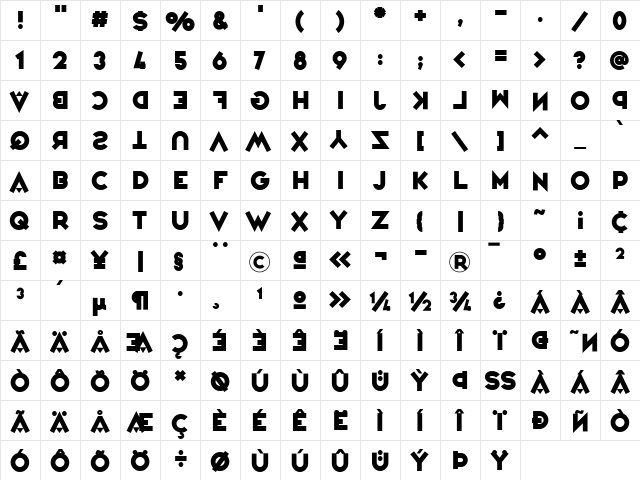
Variet頊ongleur Regular
| Foundry | Peter Wiegel |
| Designer | Peter Wiegel |
Design Context for Variet頊ongleur Typeface
Variet頊ongleur offers clean, dependable letterforms without strong stylistic allegiance, making it a practical choice for designers who need flexibility.